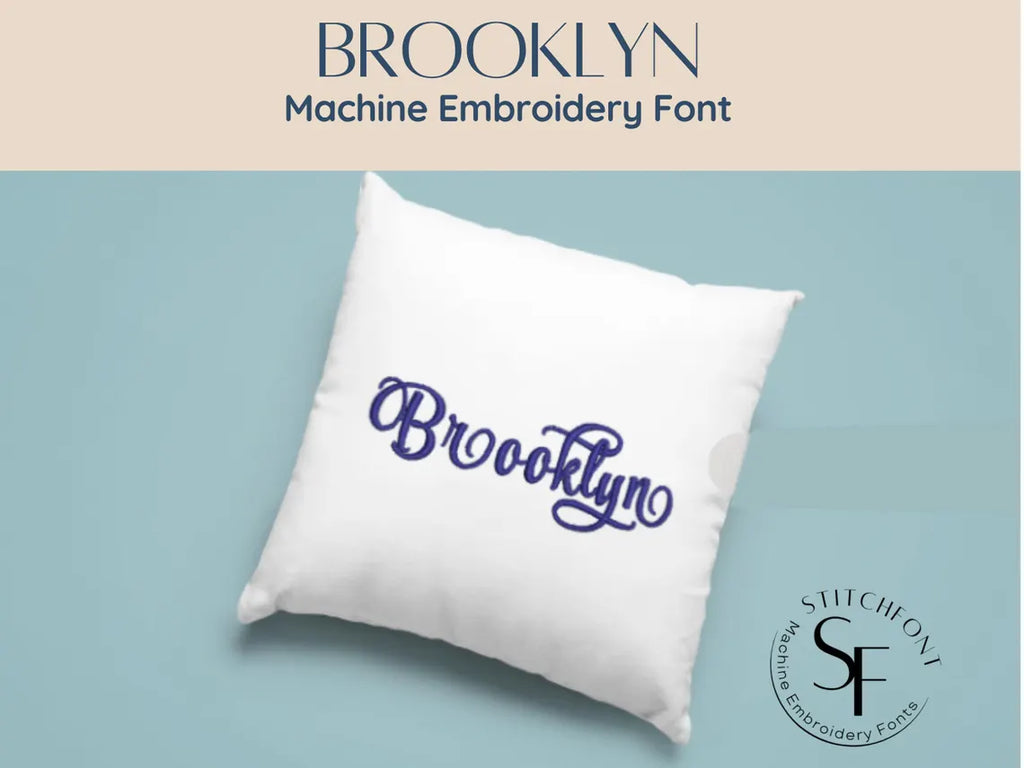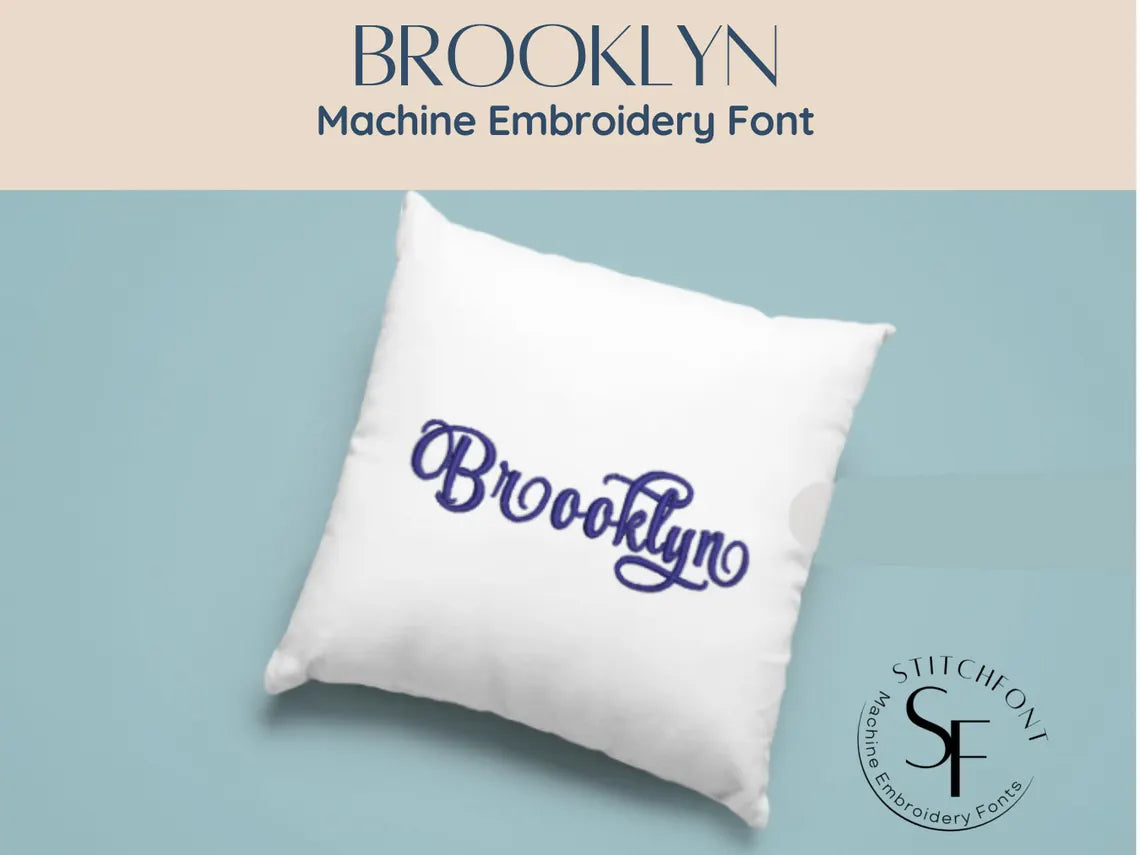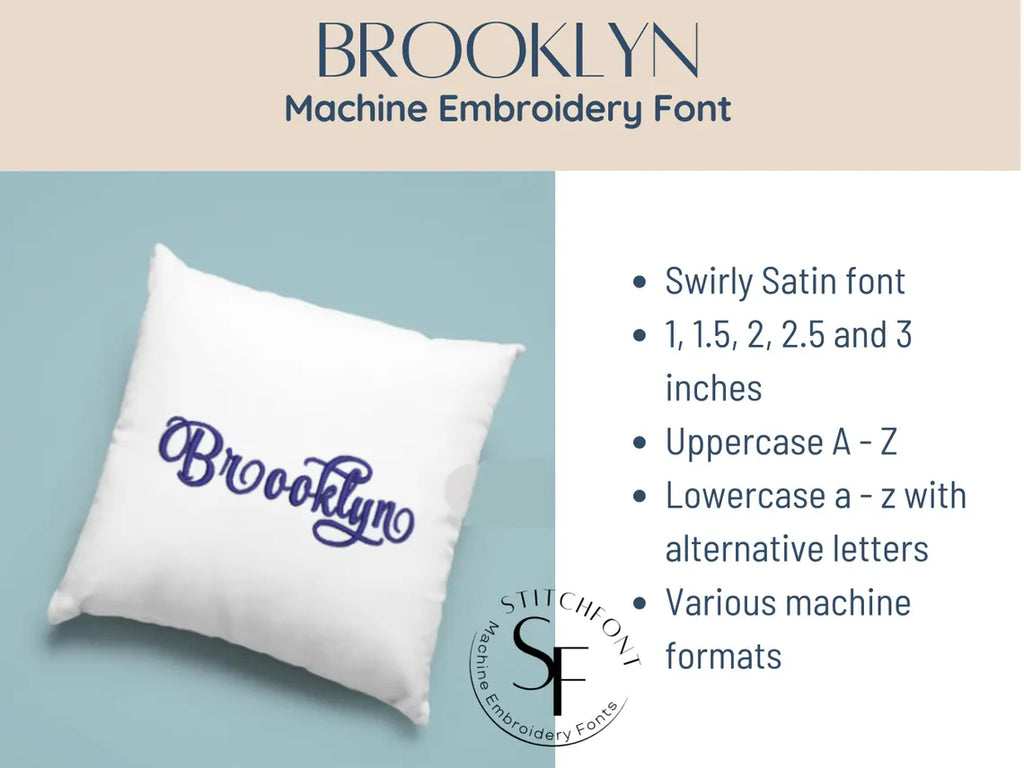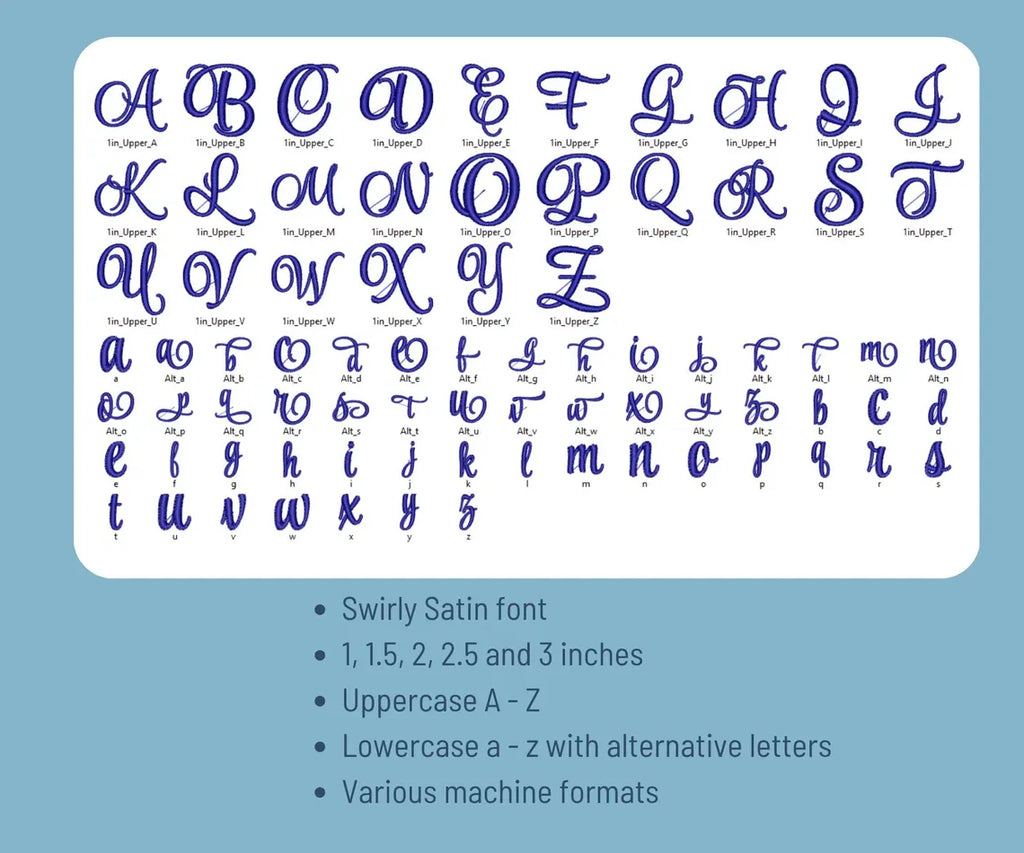
✨ Brooklyn Satin Embroidery Font – Elegant & Swirly Lettering in 5 Sizes ✨
Looking to add a touch of elegance to your embroidery projects? The Brooklyn Satin Font is a beautifully crafted script that brings charm and personality to every stitch. Ideal for customizing pillows, clothing, baby items, towels, gifts, and more – this font is designed to impress.
* Uppercase A–Z
* Lowercase a–z with alternate letter options for extra flair
* Neatly digitized for smooth, high-quality stitching
* Elegant swirly design perfect for monograms and decorative text
* Versatile sizes to suit small tags or large statement pieces
* Includes alternates to let your creativity shine